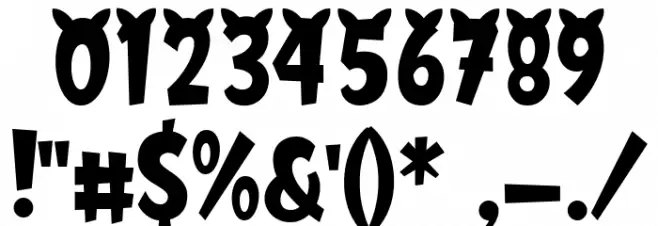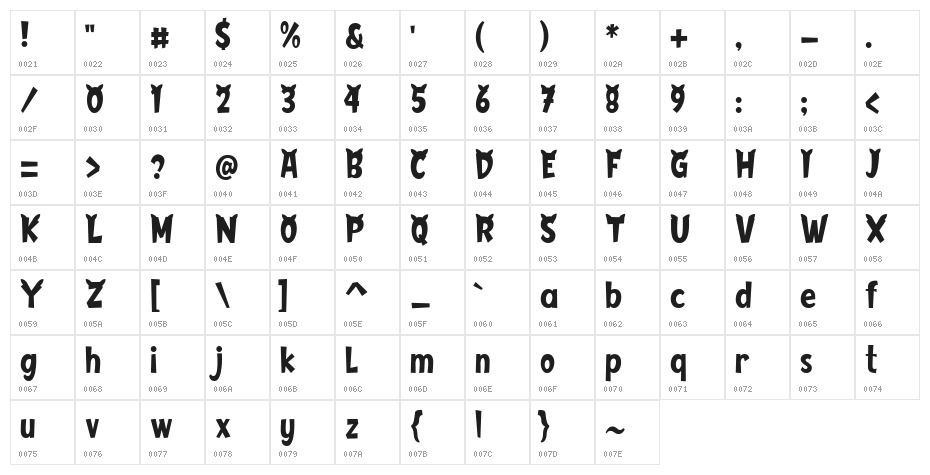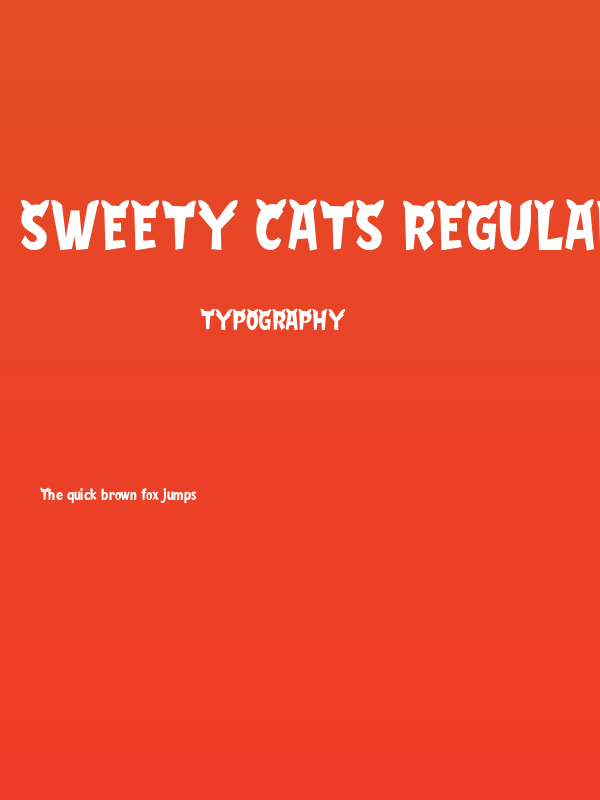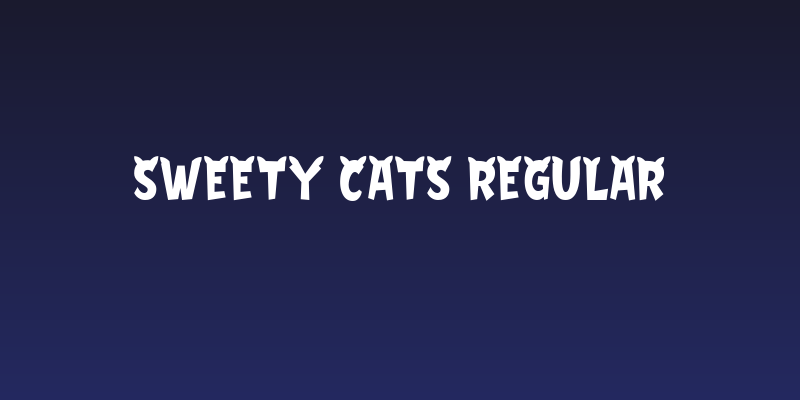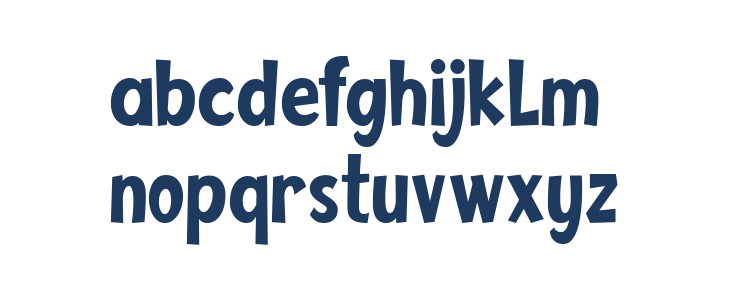
Sweety Cats Regular Font
Sweety Cats Regular Description
This playful and whimsical font features bold, rounded characters with a slightly irregular baseline, giving it a fun and lively appearance. The uppercase letters are particularly distinctive, with exaggerated curves and unique shapes that add a sense of movement and energy. The lowercase letters maintain a consistent style, complementing the uppercase with their own quirky flair. Numbers and special characters follow the same design principles, ensuring a cohesive look throughout. The font's boldness and unique character shapes make it stand out, ideal for projects that require a touch of creativity and fun.
Overall StylePlayful, Whimsical
Proposed ProjectsIdeal for children's books, playful branding, party invitations, and creative posters.